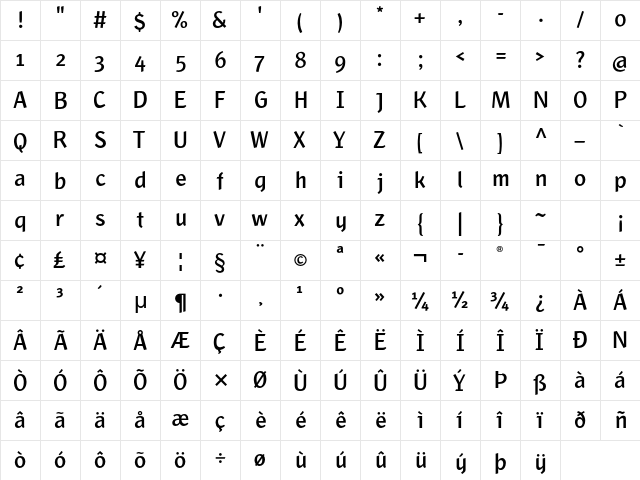
Liga Sans LT Std Bold Font Preview
Liga Sans LT Std Bold
Liga Sans LT Std Bold Font Details
| Foundry | Linotype GmbH |
| Designer | Alexander Dosiehn |
Design Context for Liga Sans LT Std Typeface
Liga Sans LT Std is a composed and adaptable typeface that performs quietly and consistently across a wide range of design contexts. The heavy weight commands attention and anchors typographic hierarchies.